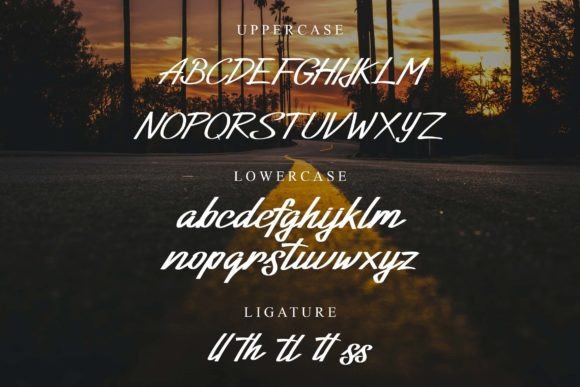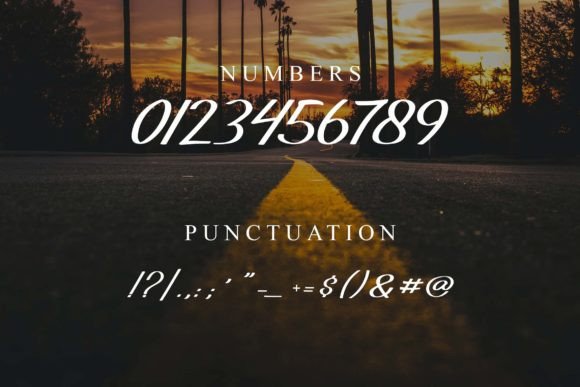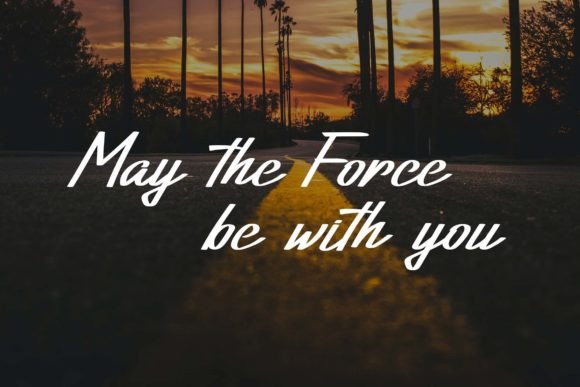
Vitha Font
About Vitha Font
“Vitha” is a modern and cool script font that exudes a contemporary and stylish aesthetic. This font is a fantastic addition to your design projects, and you’re sure to be delighted with the results it brings to your creative endeavors.
The appeal of “Vitha” lies in its modern and cool lettering. Its sleek lines and chic characters create a fashionable and visually appealing experience, making it a suitable choice for projects that seek to convey a sense of sophistication and trendiness.
One of the standout qualities of “Vitha” is its confidence-inspiring design. Whether you’re using it for branding, designing eye-catching posters, crafting stylish packaging, enhancing web graphics, or working on various other creative projects, “Vitha” seamlessly integrates into your creative vision.
This font’s ability to add a modern and cool touch to your projects sets it apart. Whether you’re working on personal or professional endeavors, “Vitha” brings a sense of contemporary style to your work that resonates with a diverse audience.
In summary, “Vitha” is more than just a font; it’s a modern and cool creative tool that can enhance your projects. Whether you’re a professional designer or someone passionate about crafting and design, “Vitha” is here to make your designs shine with its contemporary and stylish script. Embrace the confidence and style of “Vitha,” and watch your creativity flourish with chic results.